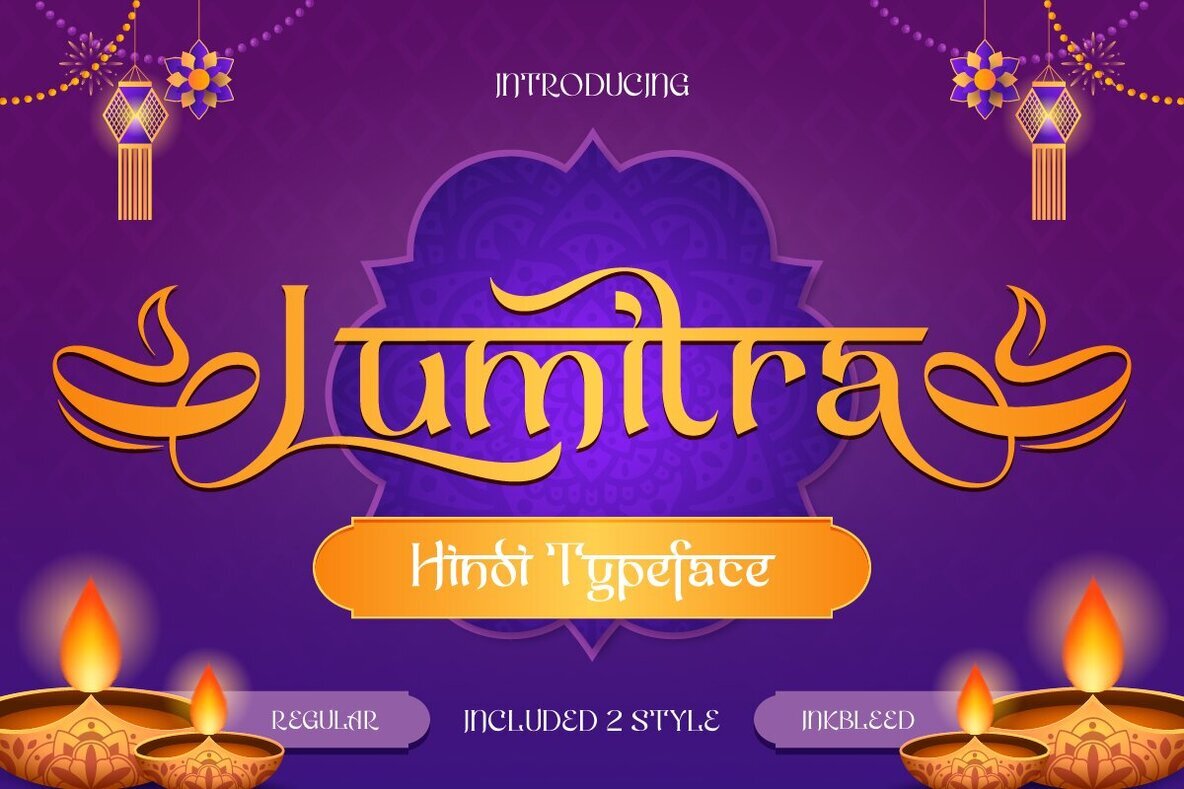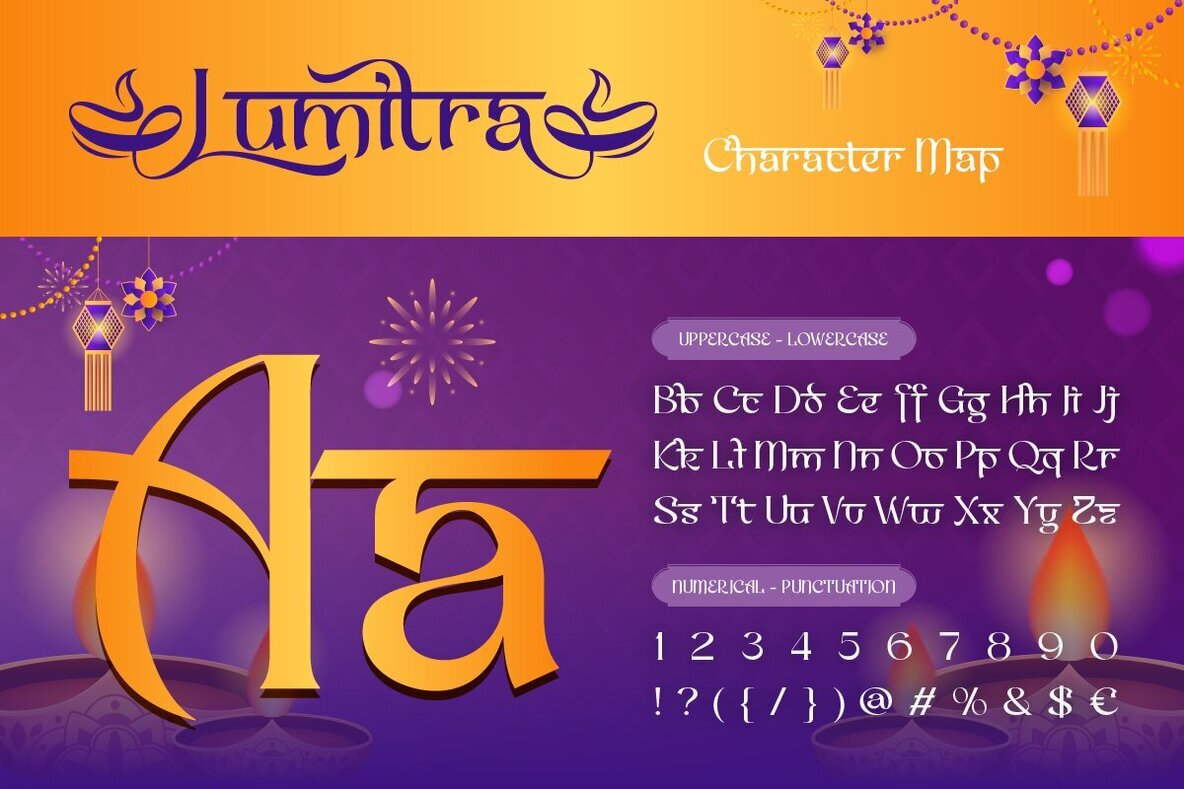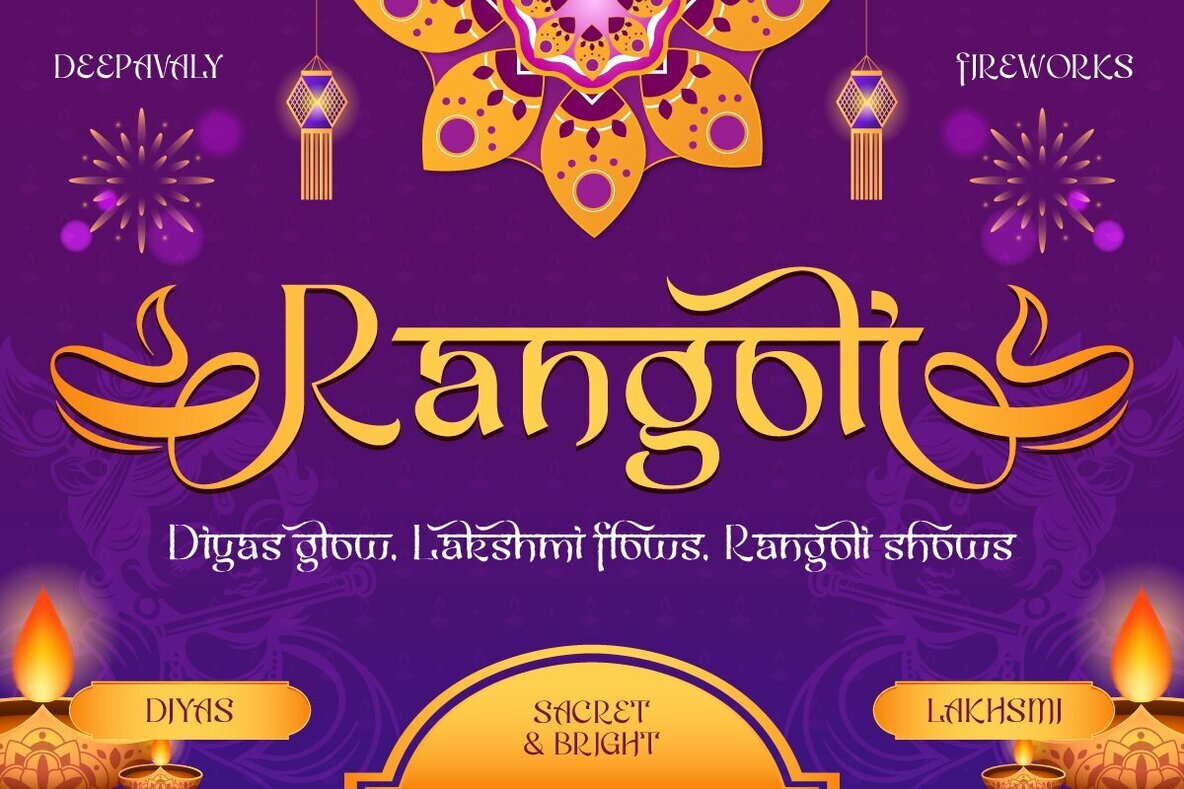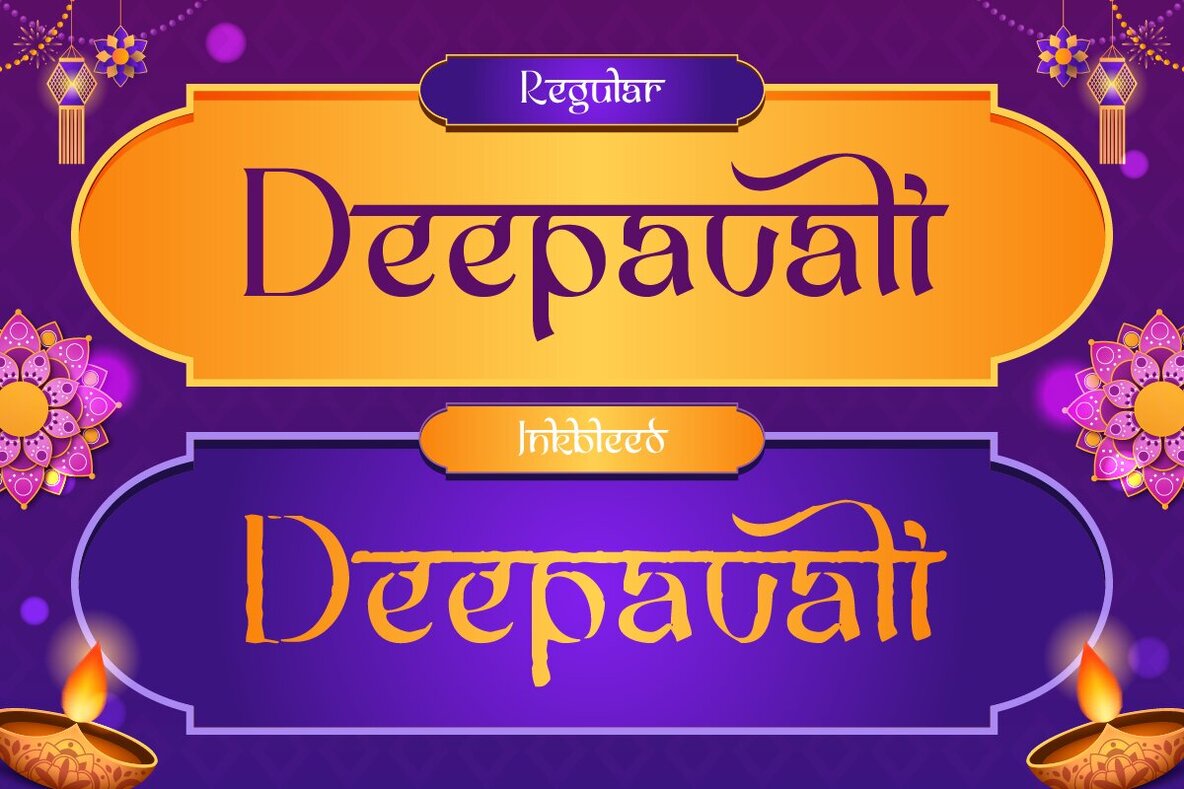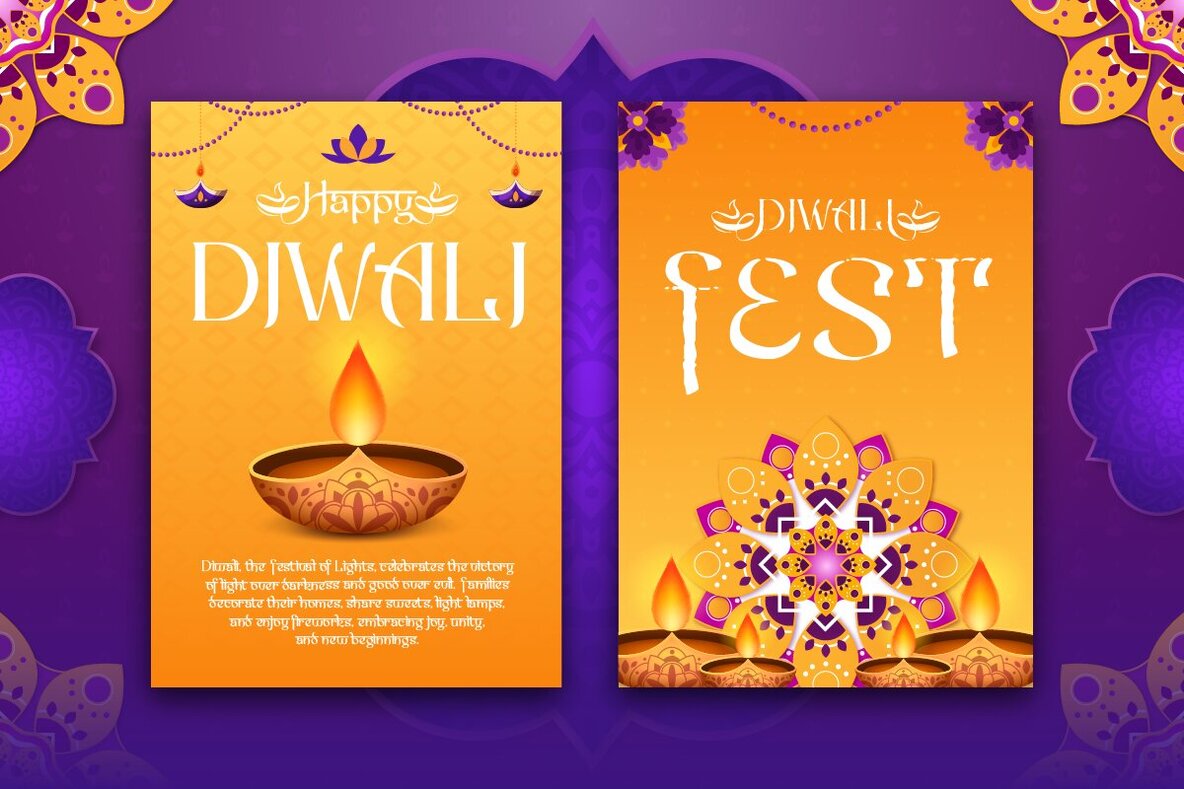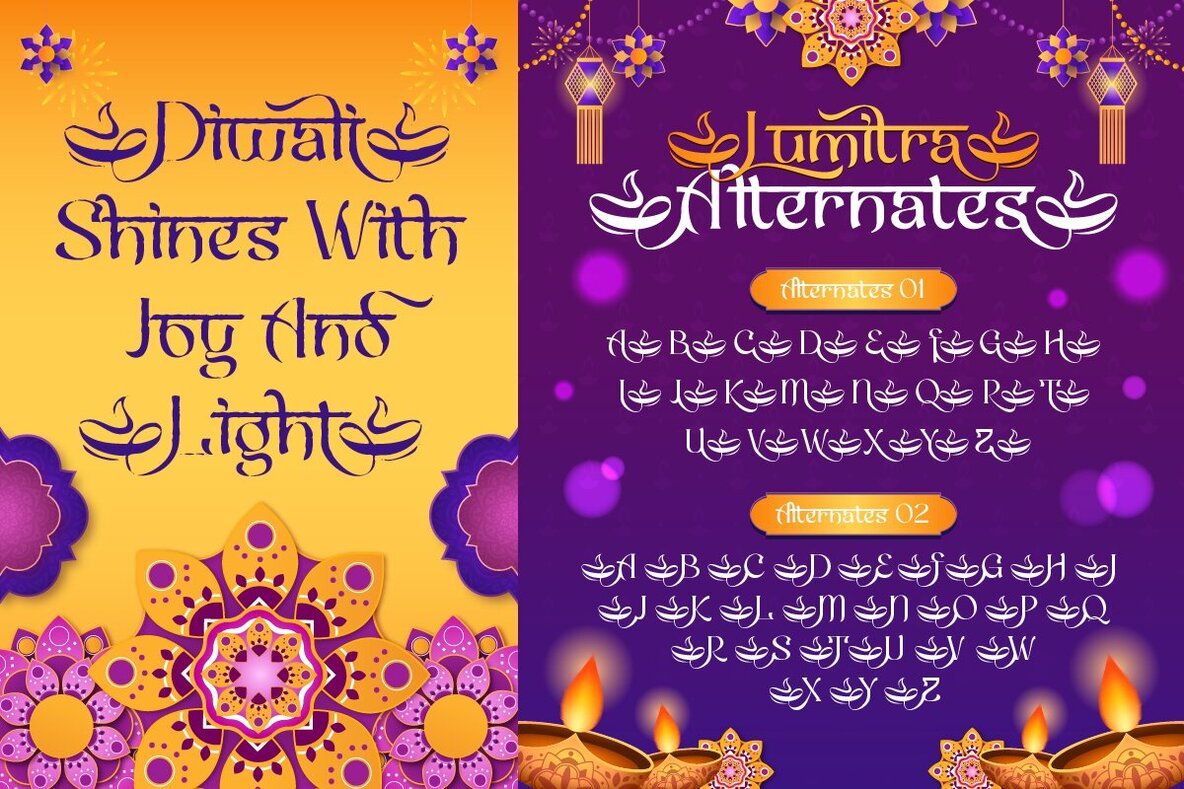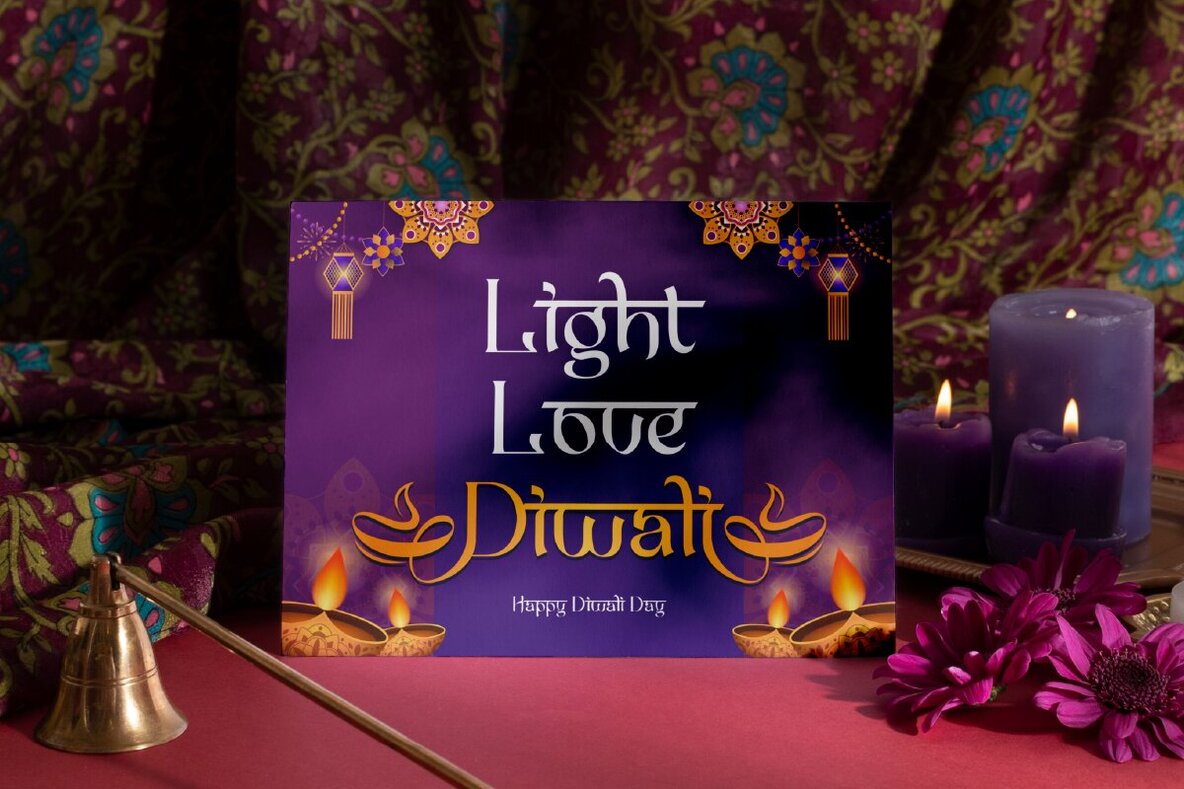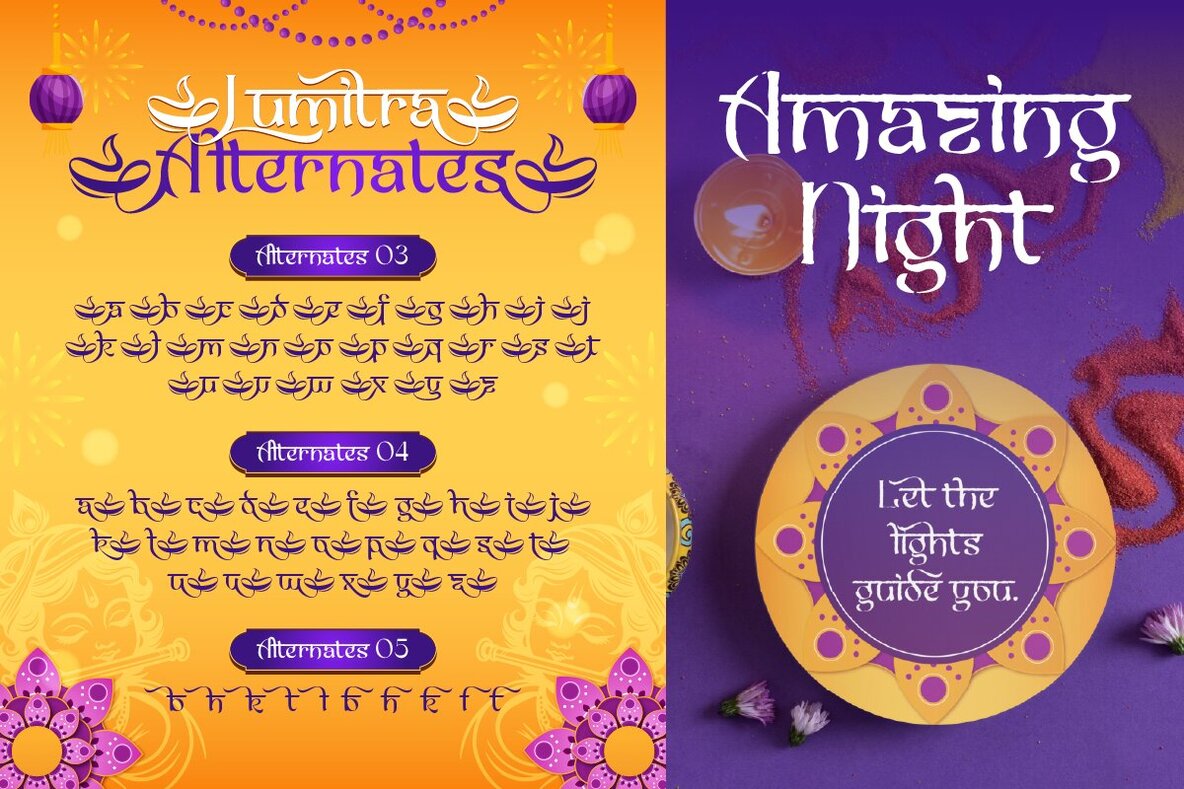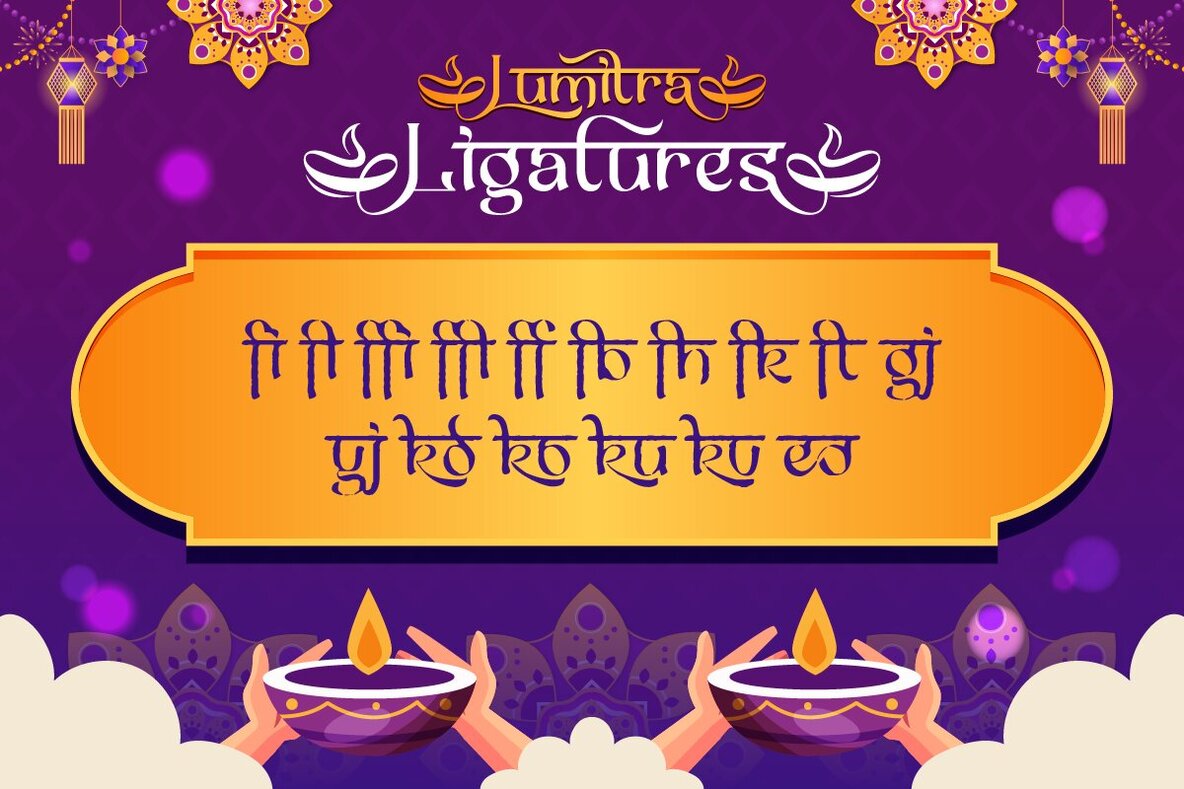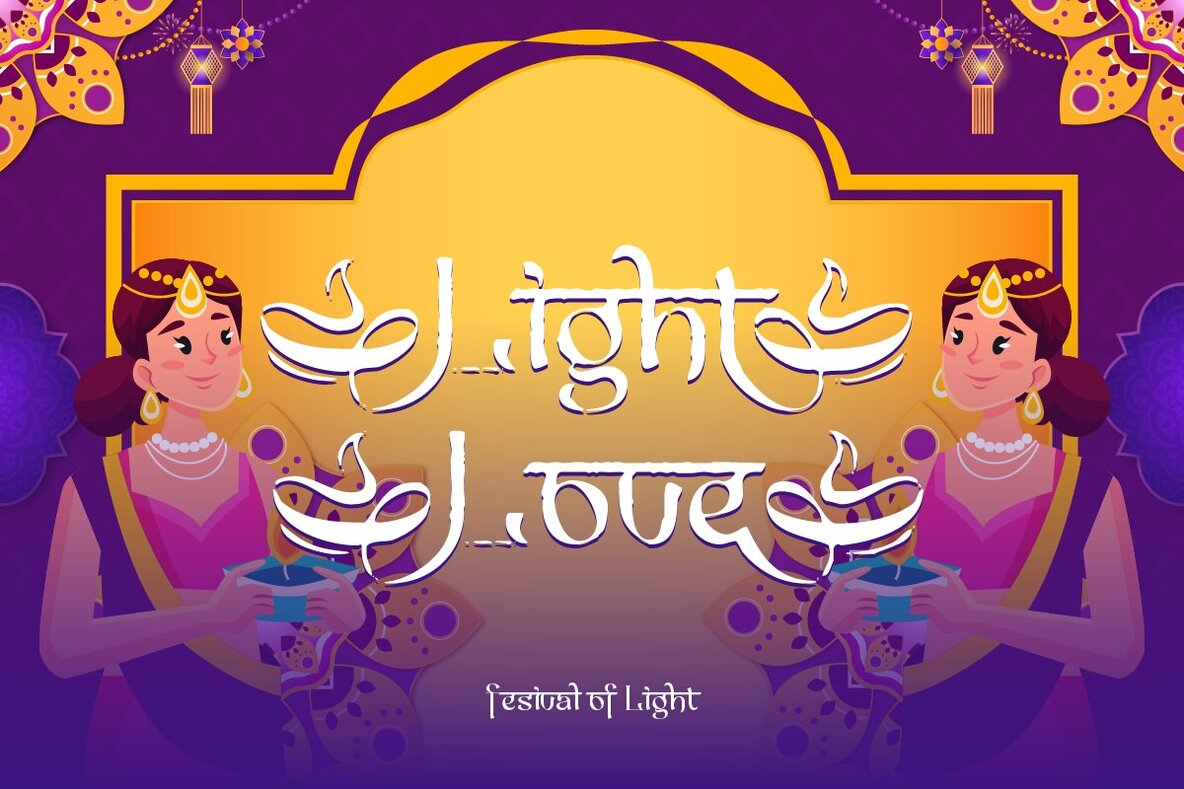
Lumitra Font
Lumitra Regular
Lumitra Inkbleed
Embrace the vibrant spirit of Diwali with Lumitra, a Hindi-inspired typeface that radiates elegance and festive charm. Picture the gleam of diyas, the lush colors of rangoli, and the joyous sounds of celebration. Lumitra is your go-to font for projects that demand a burst of brilliance and cultural flair. Available in two distinct styles, Lumitra offers Regular for a polished and sophisticated look, and Inkbleed for an artistic, hand-painted effect. Whether you're crafting posters, invitations, or designs rich with Bollywood splendor, this typeface is the perfect choice to infuse your work with a festive sparkle.Lumitra Hindi-Inspired Typeface